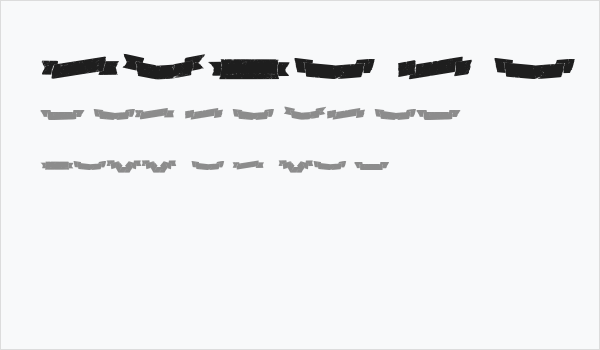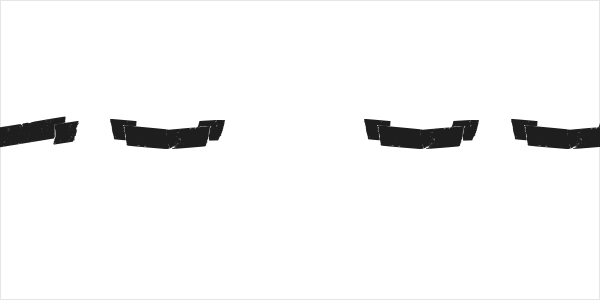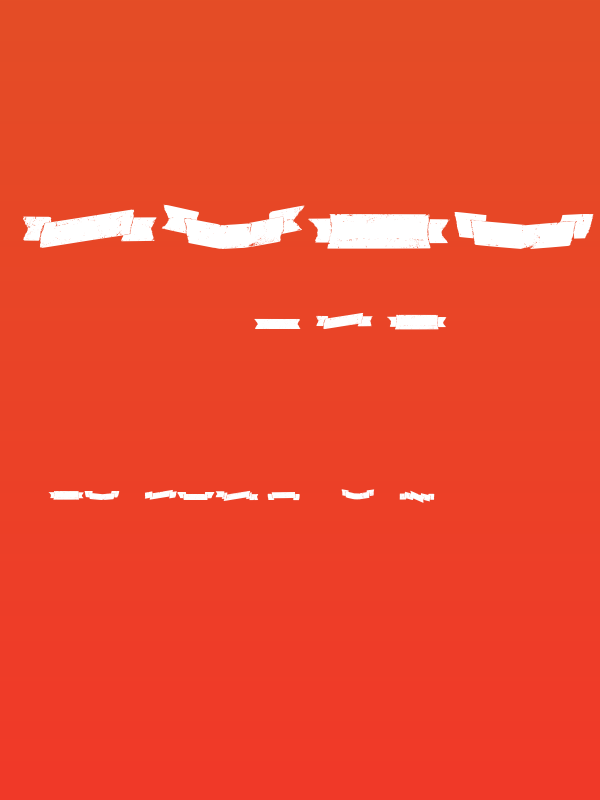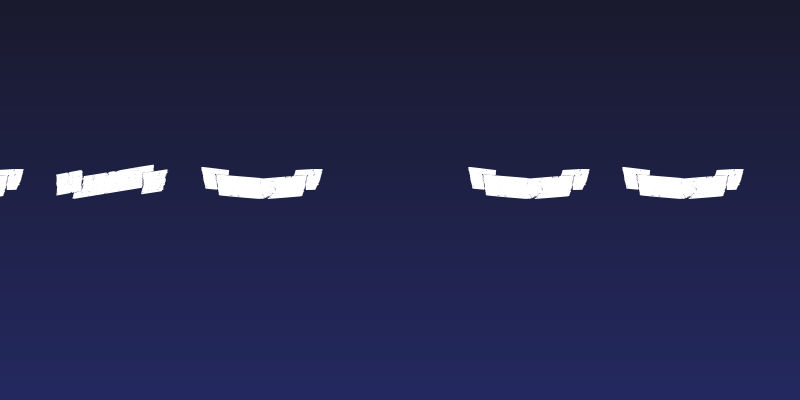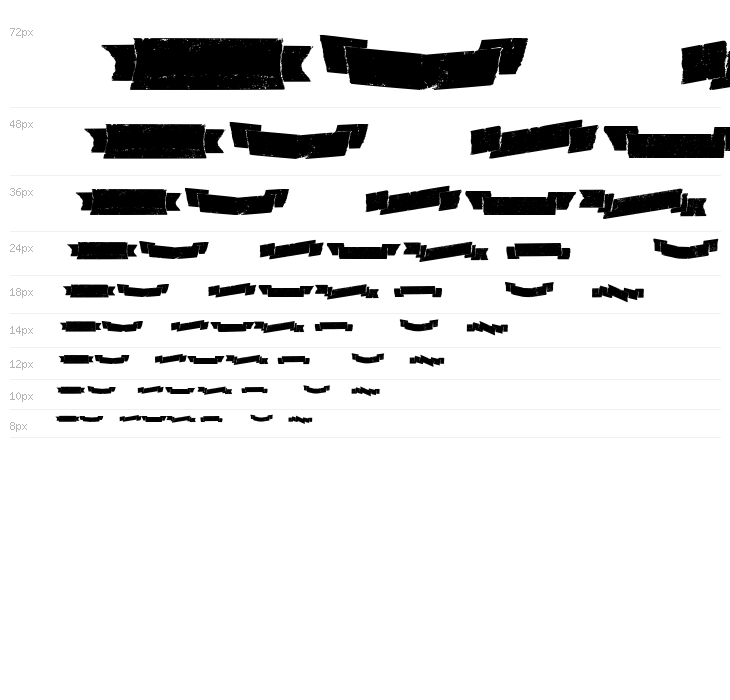
Adhesive Nr Seven Banners Font
Adhesive Nr Seven Banners Description
This font features a unique, decorative style with a playful and whimsical appearance. Each character is designed with a banner-like motif, giving it a distinctive and eye-catching look. The letters have a hand-drawn quality, with irregular edges and a slightly uneven baseline, adding to its charm. The font is highly stylized, making it suitable for creative and artistic projects. It captures attention with its bold and striking design, making it perfect for headlines or titles where a strong visual impact is desired. The characters are evenly spaced, ensuring readability despite their decorative nature. This font is ideal for projects that require a touch of creativity and flair.